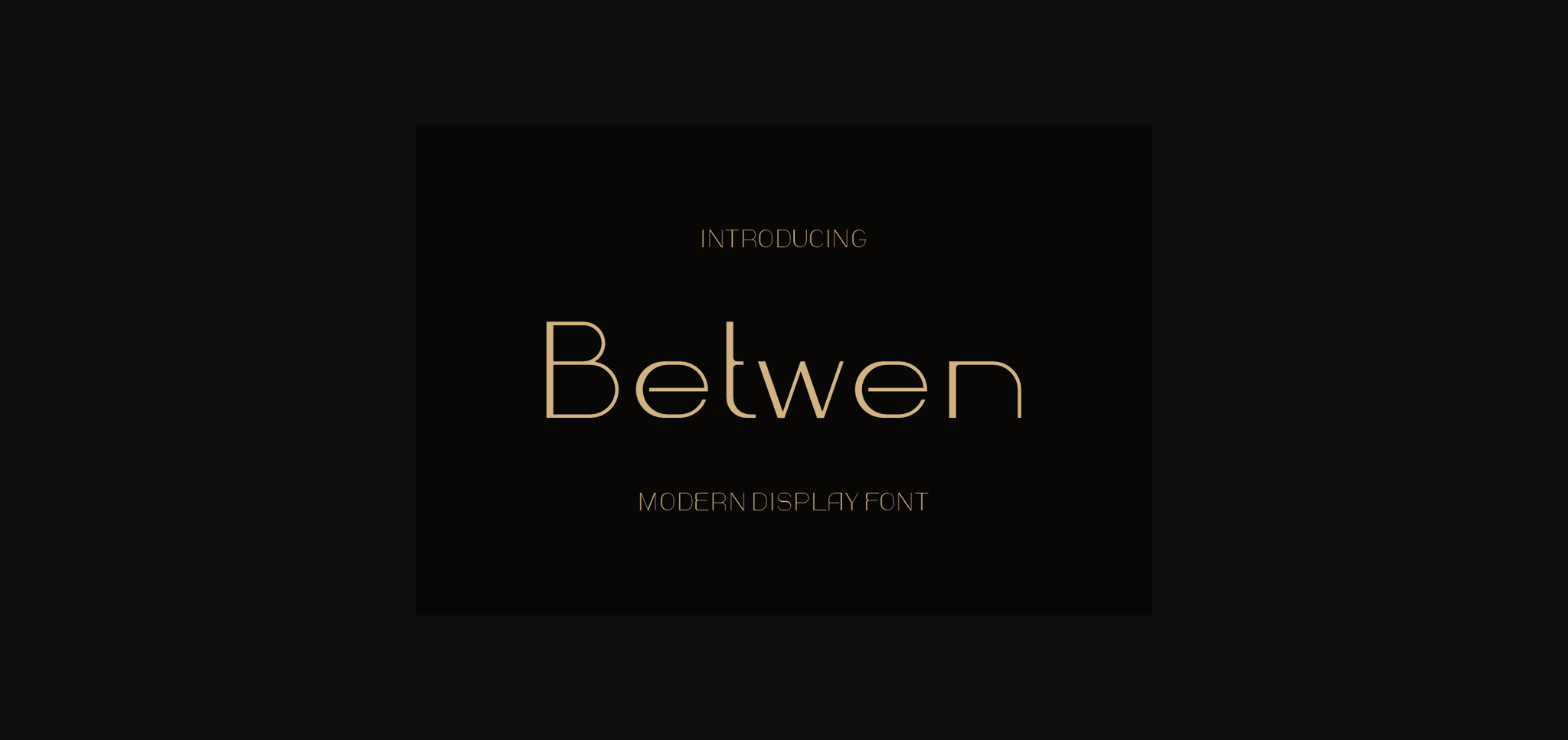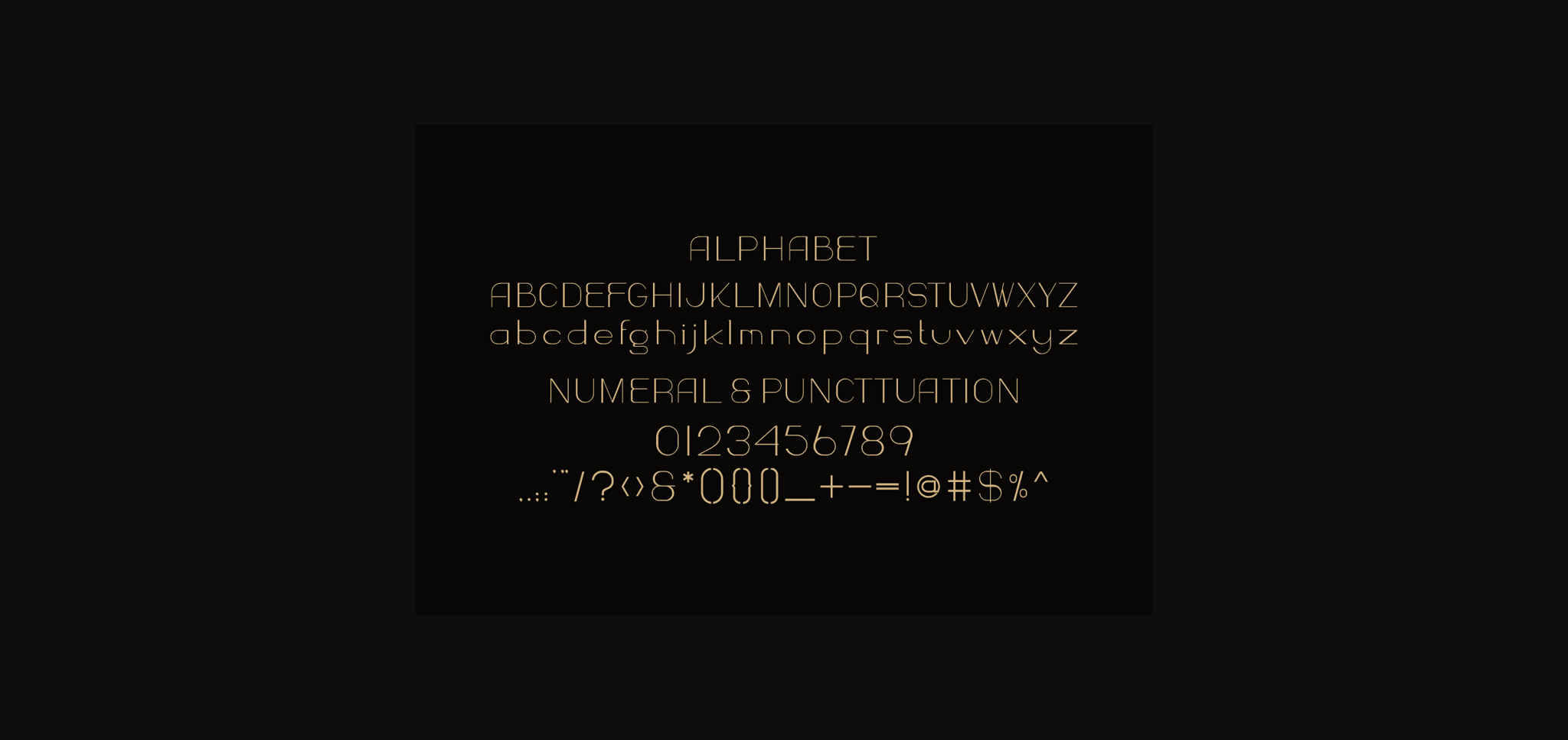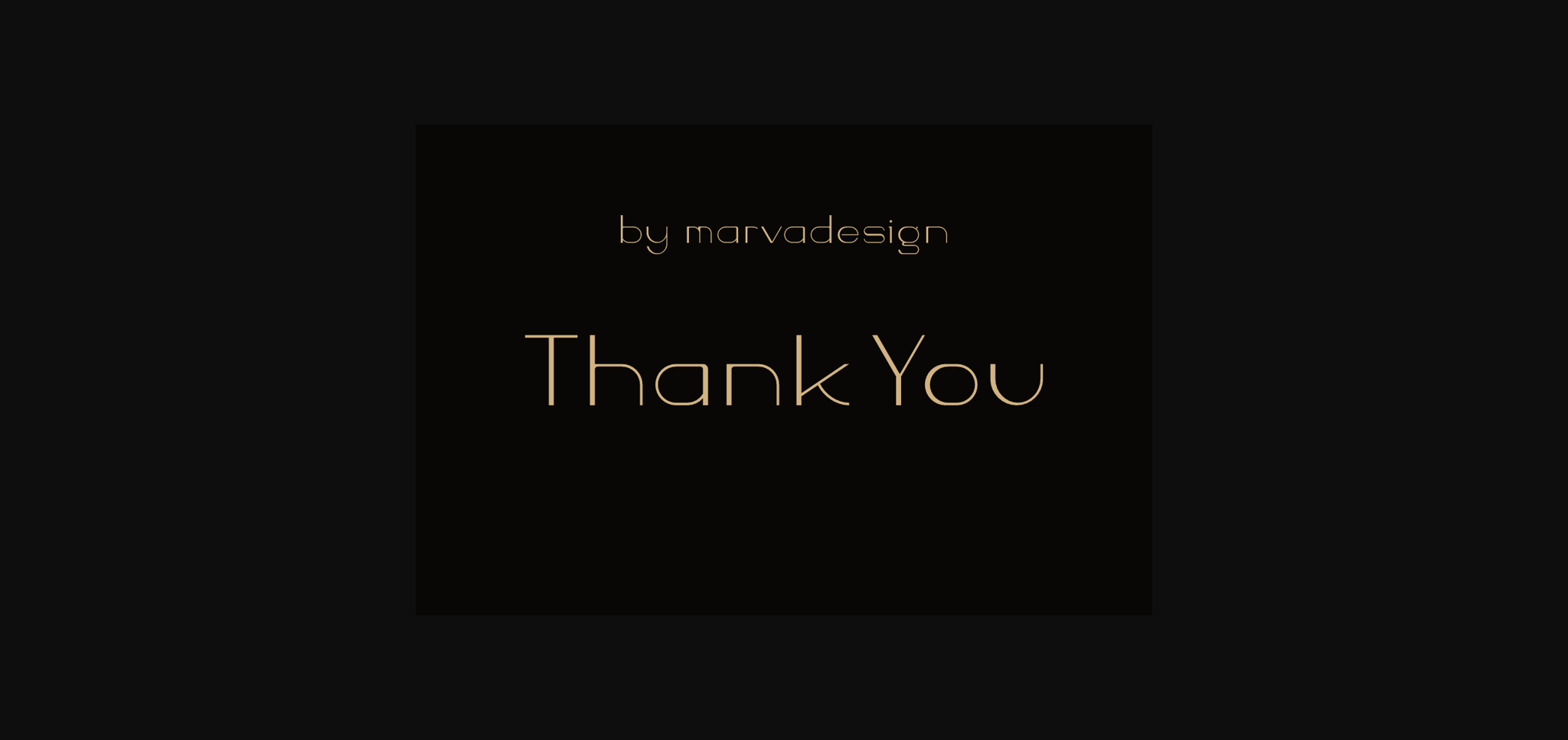
About Betwen Font
Betwen is a slim and authentic sans-serif font. The font is suitable for any branding project like logos, t-shirt printing, product packaging, and many more. It will look outstanding in a wide range of contexts.